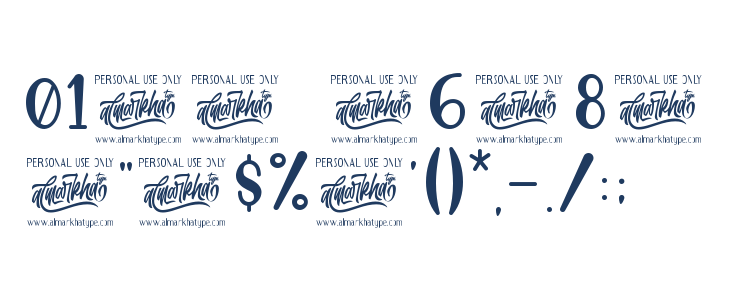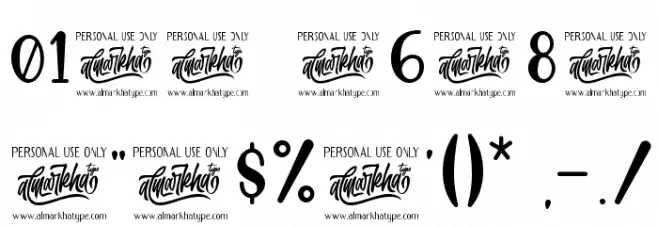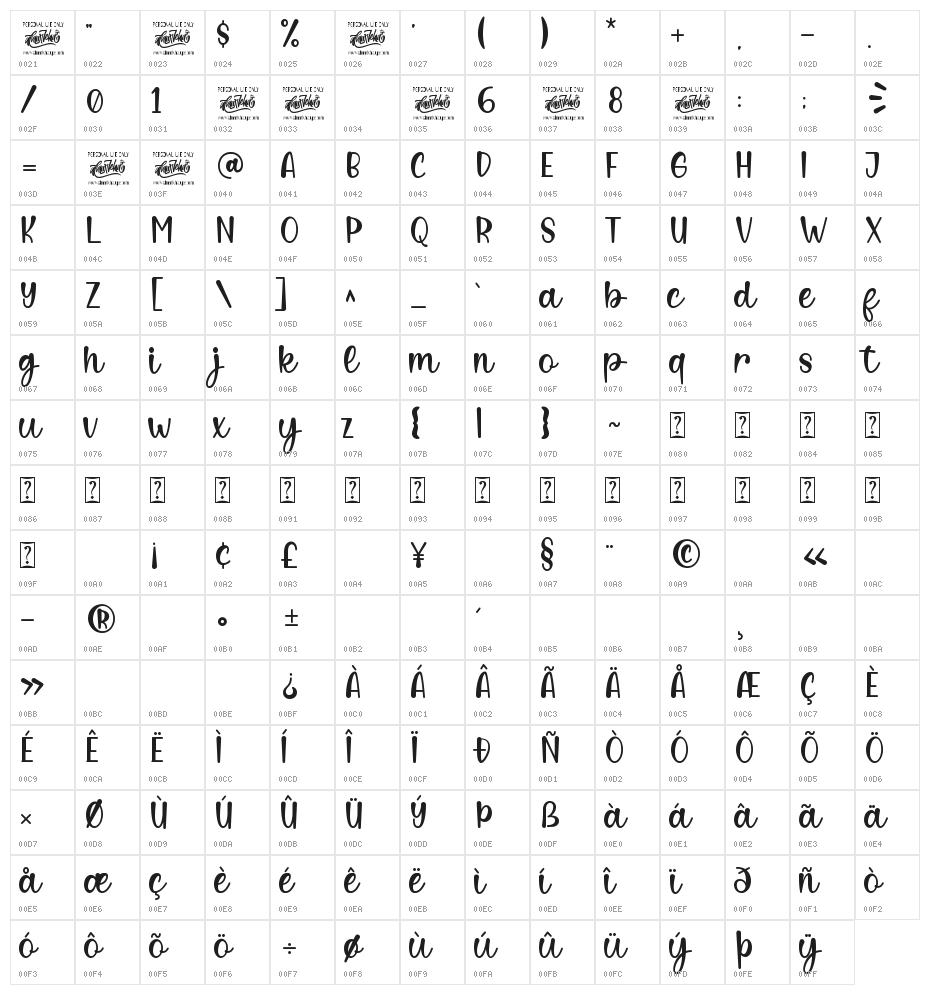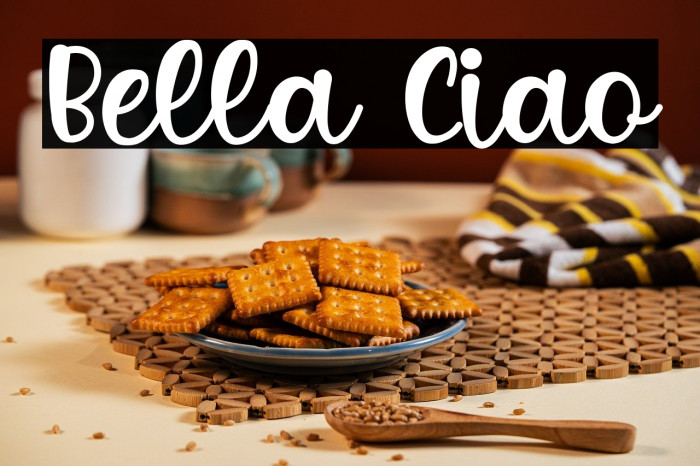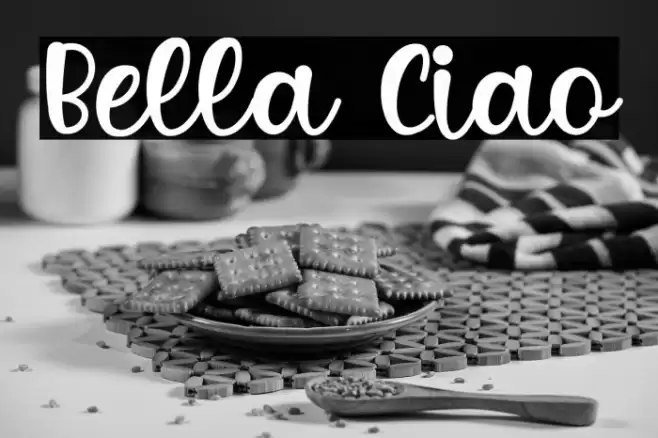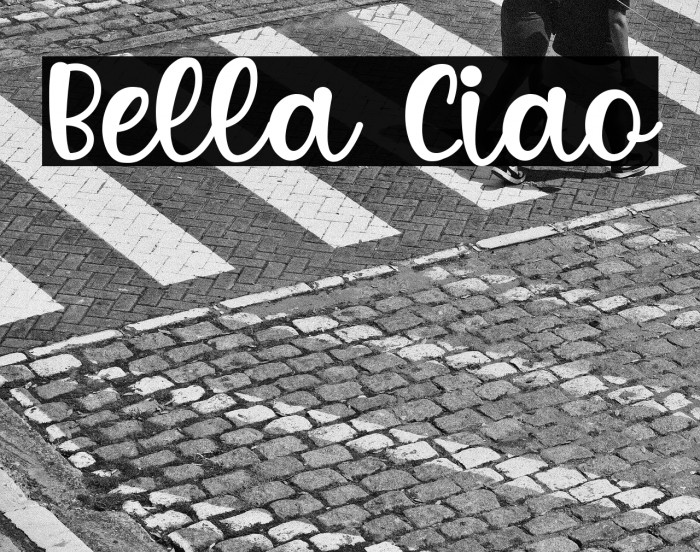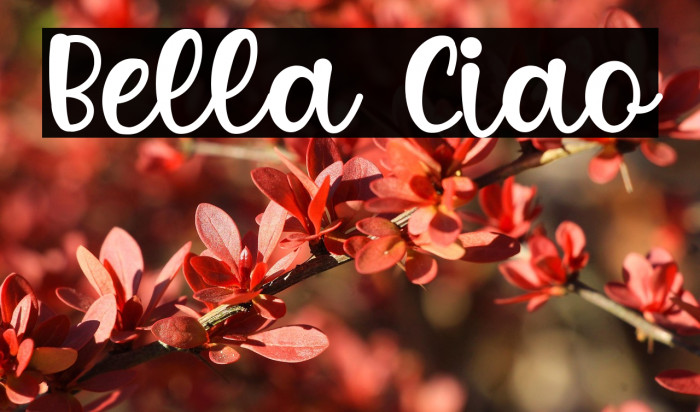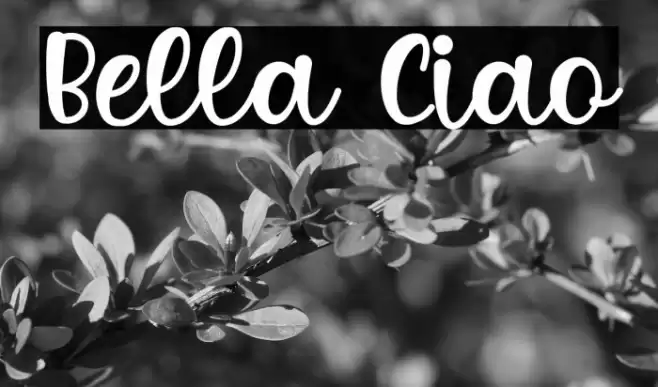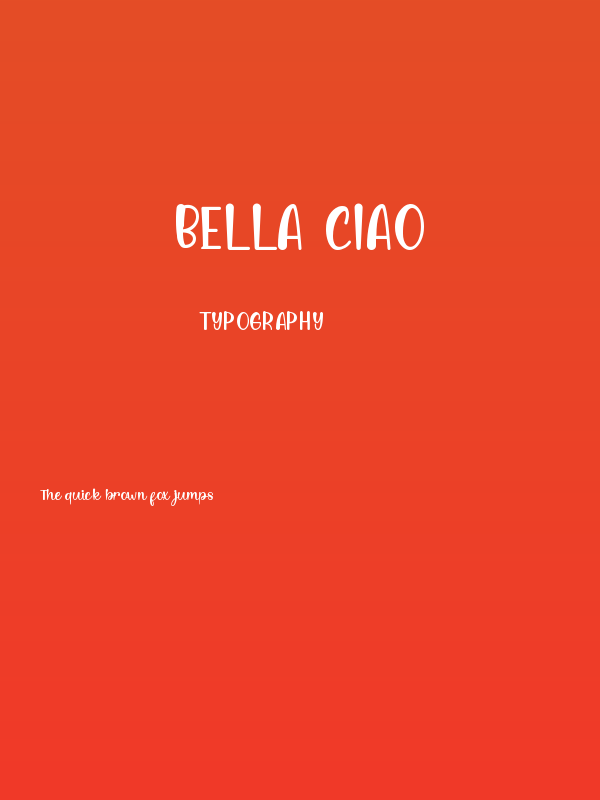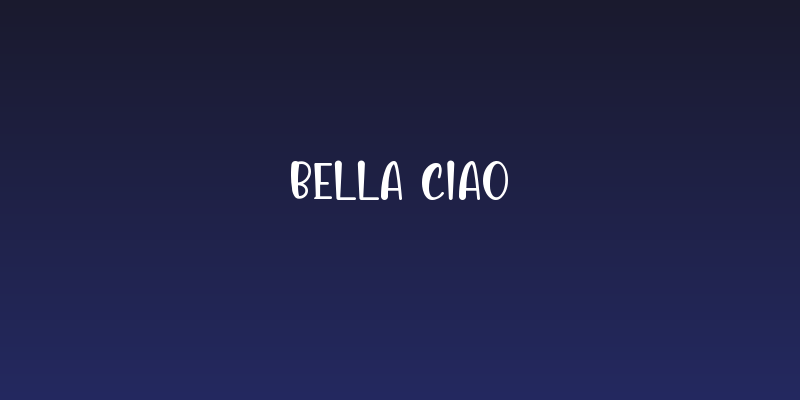
Bella Ciao Font
Bella Ciao Description
This font features a playful and energetic script style, characterized by its bold and flowing letterforms. The uppercase letters are tall and slightly condensed, while the lowercase letters exhibit a more fluid and connected appearance, reminiscent of casual handwriting. The numbers and special characters maintain the same lively aesthetic, ensuring consistency across all glyphs. The font's overall design is both approachable and dynamic, making it suitable for a variety of creative applications.
| Proposed Projects | Ideal for greeting cards, playful branding, social media graphics, and children's book covers. |